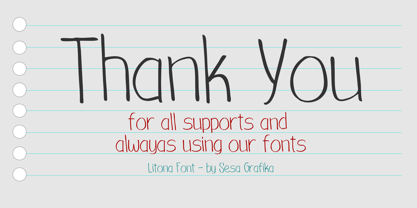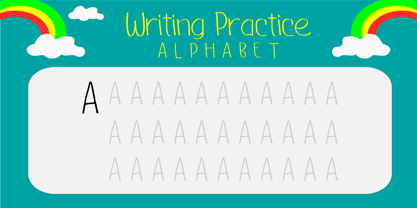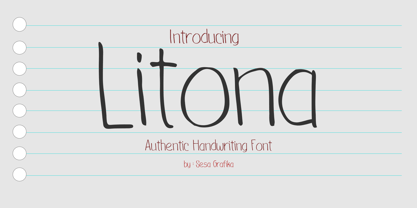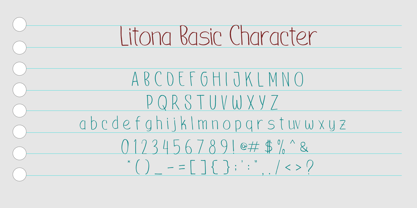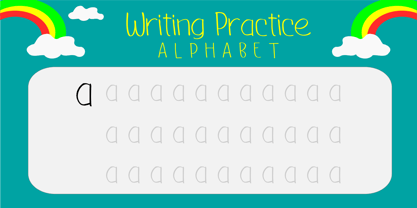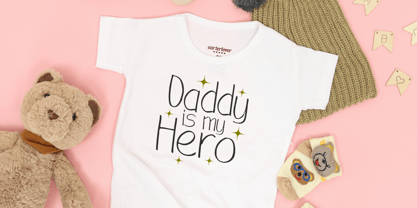
Litona
by Sesa Grafika
The Litona Font Family was designed by Wisesa Purba Giandar and published by Sesa Grafika. Litona contains 1 styles. More about this family
Litona is a sweet and friendly handwritten font. It will elevate a wide range of design projects to the highest level. You can use this font for many design ideas such as stickers, t-shirt designs, amazing logo designs, magazine or book covers, comics, cartoon drawings, and many more. This font will add a super cool touch to your designs!
Designers: Wisesa Purba Giandar
Foundry: Sesa Grafika